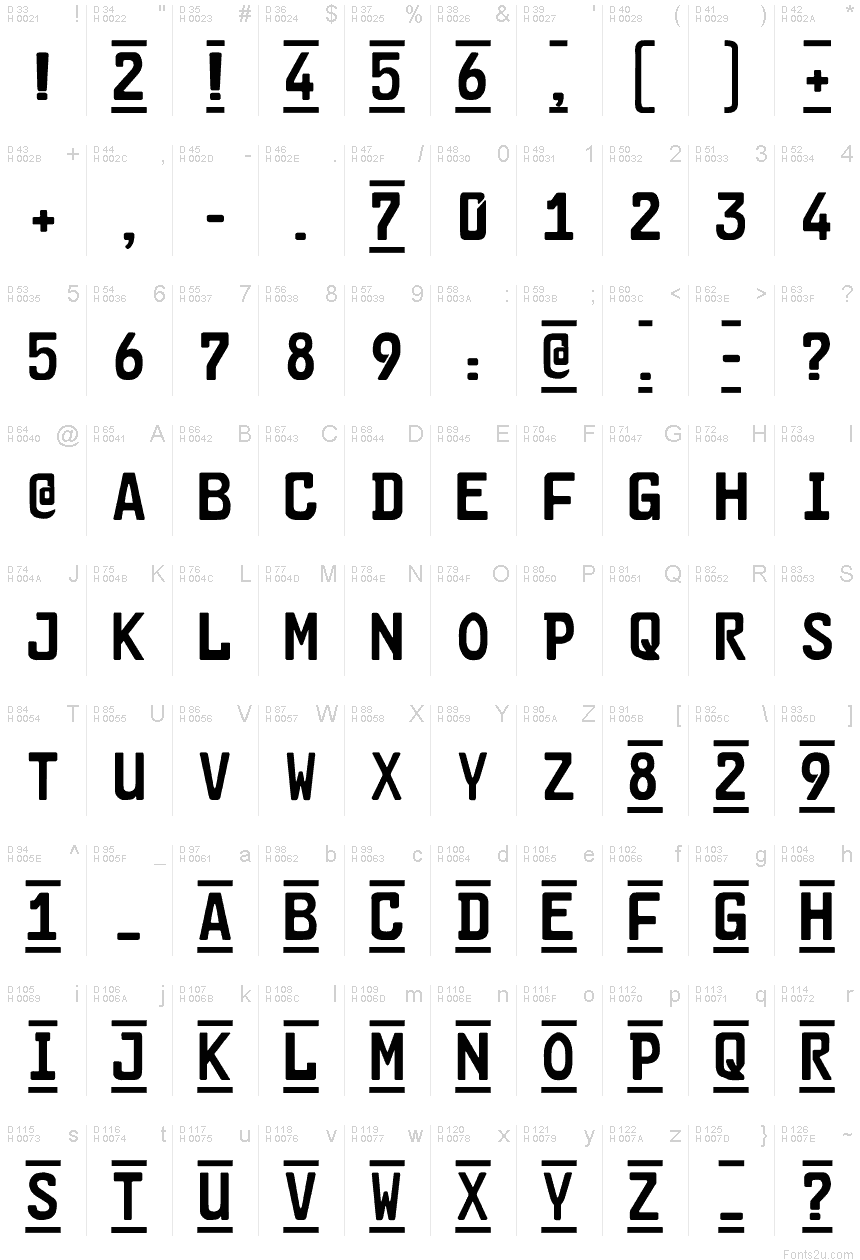
CAR-GO 2
Car-go 2 font by Anke Art is a free retro display typeface that recreates the iconic German FE-Schrift from number plates. Its squared curves, clipped corners, and slightly compressed shapes give every word the sturdy, utilitarian feel of stamped metal and highway signage. Set large, the letters form a tight, mechanical rhythm that’s instantly readable yet unmistakably specialized.
Using Car-go 2 from the Car-go family is a natural fit for automotive branding, racing posters, industrial packaging, wayfinding mockups, transport apps, retro tech visuals, and urban event graphics. This free font shines when you want that authentic license-plate grit with clean, digital precision. Pair it with a neutral grotesk or geometric sans for body text, and let Car-go 2 handle bold headlines and numbers.